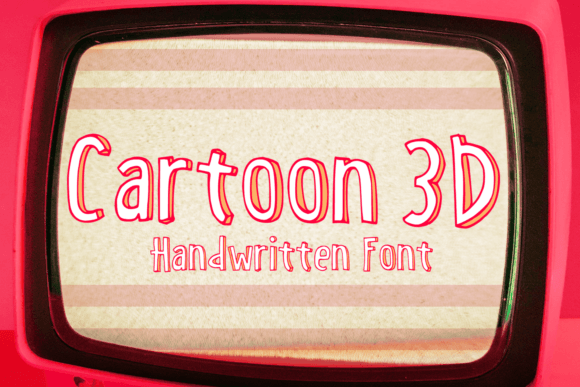
Introduction to Cartoon 3d Font
Cartoon 3D is a fun cartoon display font.
You can use it for anything ranging from t-shirts, kids’ book designs, and greeting cards to stickers and posters, or anything that needs a casual touch Fall in love with its incredibly versatile style, and use it to create lovely designs.
Key Features of Cartoon 3d Font